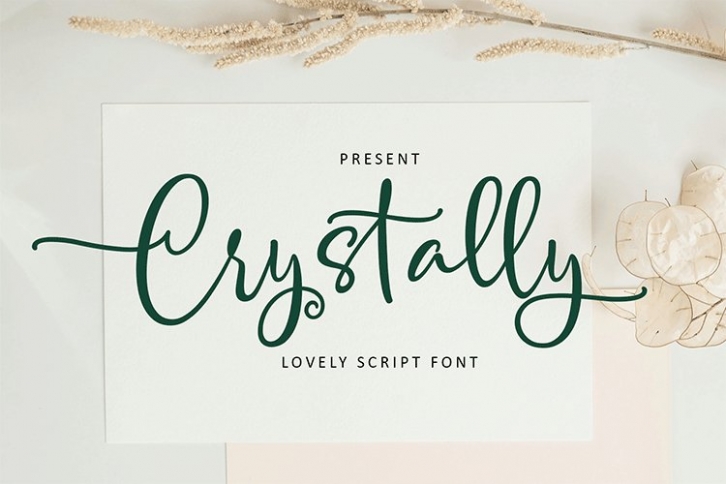
Crystally Calligraphy is a trendy and unique font with an authentic style. It was designed by Meutuwah and it's a great choice for creative people who need such a font. It was released on April 12, 2022 and the file size is 19.57 MB. Crystally Calligraphy will add an organic vibe to any design idea!